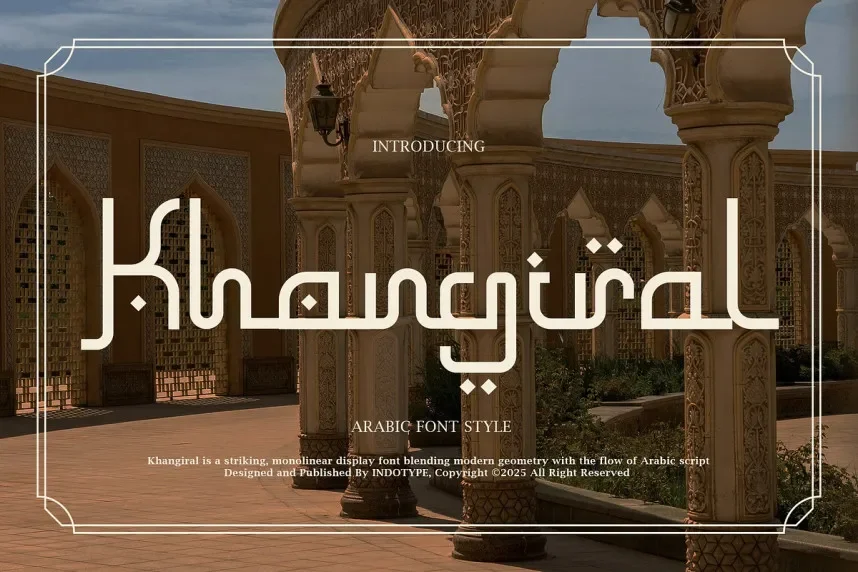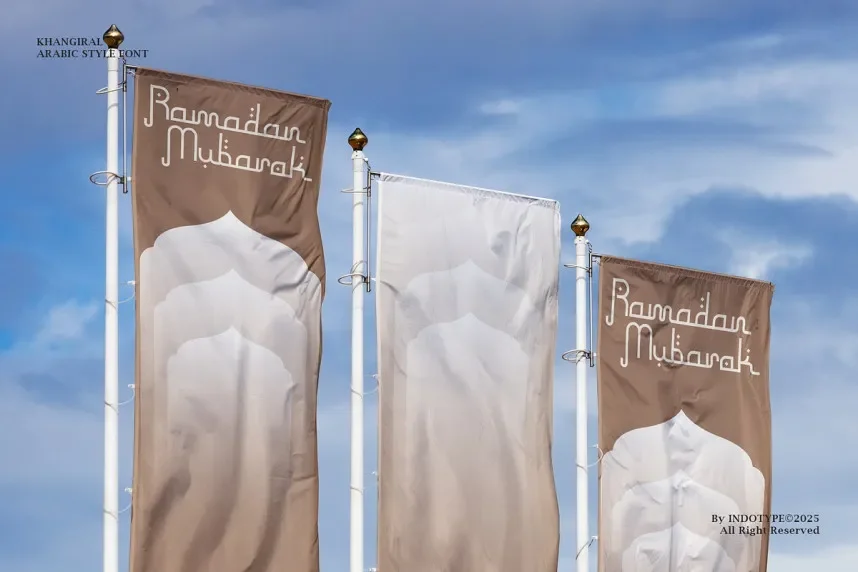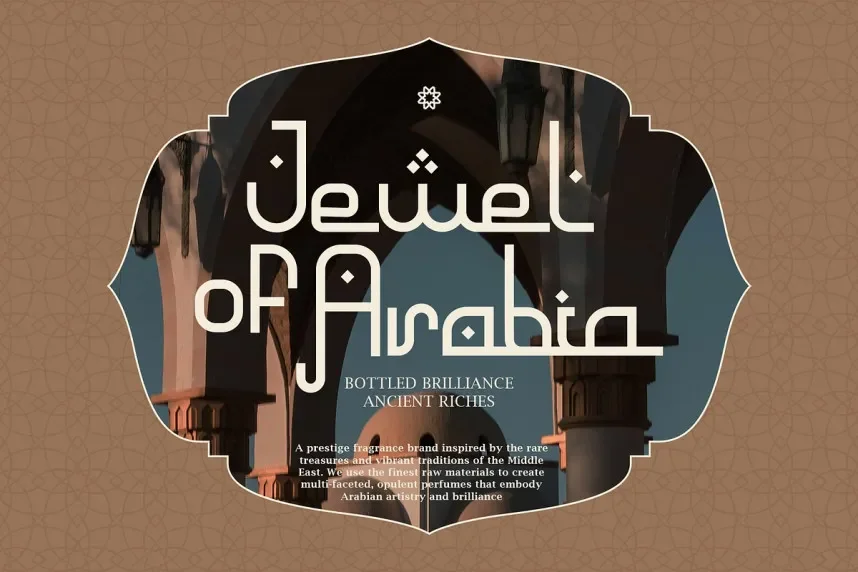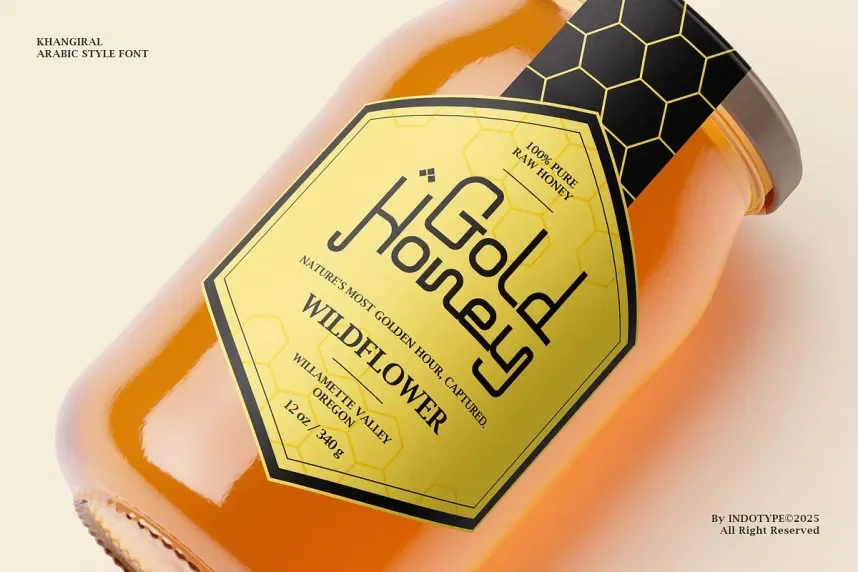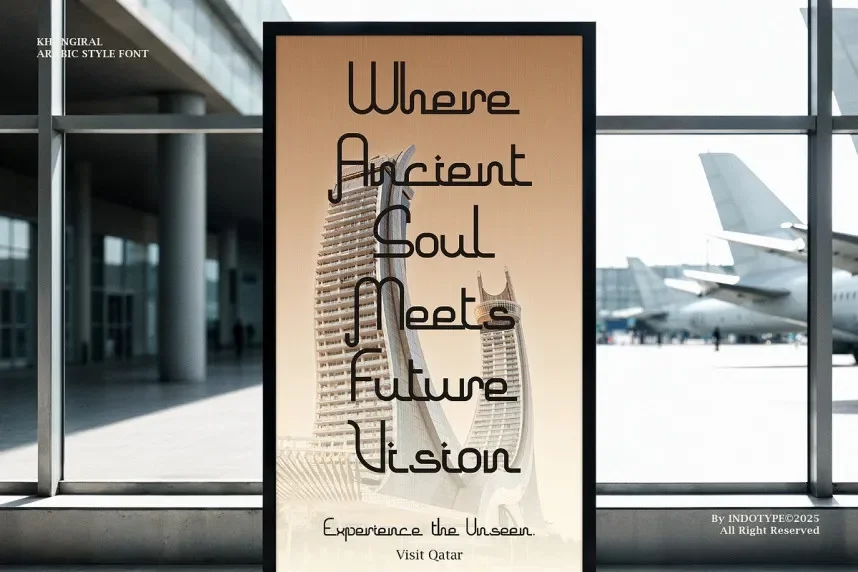
Khangiral Font is a monolinear Arabic typeface designed for clean, contemporary designs. Its consistent stroke width and modern structure make it ideal for digital interfaces, branding, and projects that require clarity and readability in Arabic typography. Khangiral is perfect for combining with other typefaces in bilingual projects.